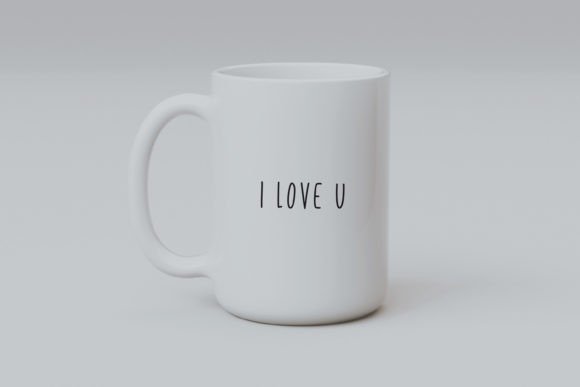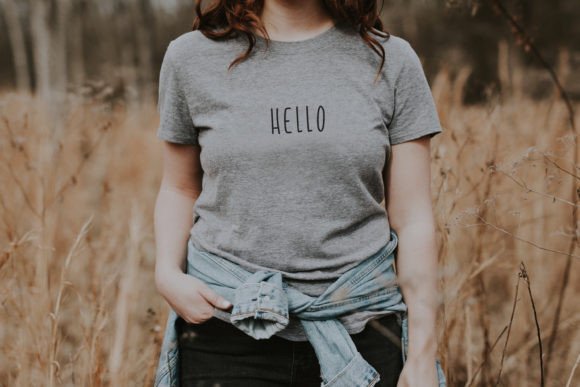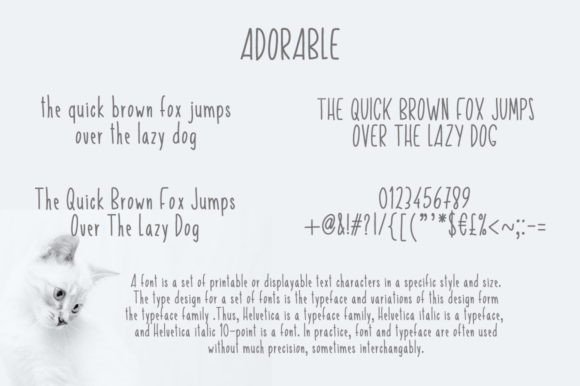
Introducing Adorable Font: The Perfect Handwritten Style for Your Design Projects
Are you tired of using the same old fonts for your design projects? Do you want to add a personal touch to your creations? Look no further than Adorable Font, a classic but adorable handwritten skinny font that’s perfect for any design project. With its imperfect, unfinished style, Adorable Font is sure to add a unique and playful touch to your designs.
What is Adorable Font?
Adorable Font is a handwritten font that’s designed to look like it was written with a pen or pencil. It’s a skinny font, which means it’s perfect for adding text to your designs without overpowering them. The font has an imperfect, unfinished style that gives it a charming and whimsical feel. It’s perfect for creating fun and playful designs that will stand out from the crowd.
Why Use Adorable Font?
There are many reasons why you should use Adorable Font for your design projects. Here are just a few:
- Unique and Playful Style: Adorable Font has a unique and playful style that’s sure to add a personal touch to your designs. It’s perfect for creating fun and quirky designs that will stand out from the crowd.
- Versatile: Adorable Font is versatile and can be used for a wide range of design projects, from social media posts to print products like t-shirts and mugs.
- Easy to Read: Despite its skinny style, Adorable Font is easy to read, making it perfect for creating designs that require a lot of text, such as quotes and sayings.
Using Adorable Font for Social Media Posts
Adorable Font is perfect for creating social media posts that stand out from the crowd. Here are a few ideas for using Adorable Font for social media:
- Fun Quotes: Use Adorable Font to create fun and inspiring quotes that will engage your followers. You can add them to images or graphics, or use them on their own as a post.
- Personalized Messages: Use Adorable Font to create personalized messages for your followers. You can add their names or special occasions to make the message extra special.
- Behind-the-Scenes: Use Adorable Font to create behind-the-scenes content, such as sneak peeks of new products or services.
Using Adorable Font for Print Products
Adorable Font is also perfect for creating print products, such as t-shirts, mugs, and more. Here are a few ideas for using Adorable Font for print products:
- T-Shirts: Use Adorable Font to create fun and quirky designs for t-shirts. You can add quotes, sayings, or graphics to make the design extra special.
- Mugs: Use Adorable Font to create personalized mugs with fun and inspiring quotes or messages.
- Stickers and Decals: Use Adorable Font to create stickers and decals with fun and playful designs.
Tips for Using Adorable Font
Here are a few tips for using Adorable Font:
- Keep it Simple: Adorable Font is a skinny font, so it’s best to keep your designs simple and uncluttered.
- Experiment with Colors: Adorable Font looks great in a variety of colors, so don’t be afraid to experiment and find the perfect color for your design.
- Pair it with Other Fonts: Adorable Font can be paired with other fonts to create a unique and interesting design.
Adorable Font is a classic but adorable handwritten skinny font that’s perfect for any design project. With its imperfect, unfinished style, Adorable Font is sure to add a unique and playful touch to your designs. Whether you’re creating social media posts or print products, Adorable Font is the perfect choice. So why not give it a try and see what amazing designs you can create?